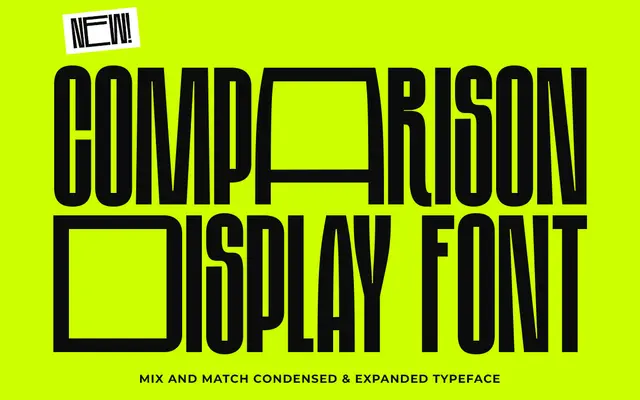
Comparison Display Font
A single-weight display sans that pairs expanded uppercase letters with condensed lowercase for built-in stylistic contrast.
The typeface splits its case registers across two width extremes: uppercase characters are set in a broad, bold expanded style while lowercase sits in a tight condensed form. This contrast is the sole design conceit, intended for posters, headlines and logos where the mix-and-match width shift provides visual interest without additional styles. Language coverage is broad, spanning Latin-based European and African scripts.
Classified as display due to its deliberate stylistic contrast between expanded uppercase and condensed lowercase letterforms, designed explicitly for headline and poster use rather than text setting.